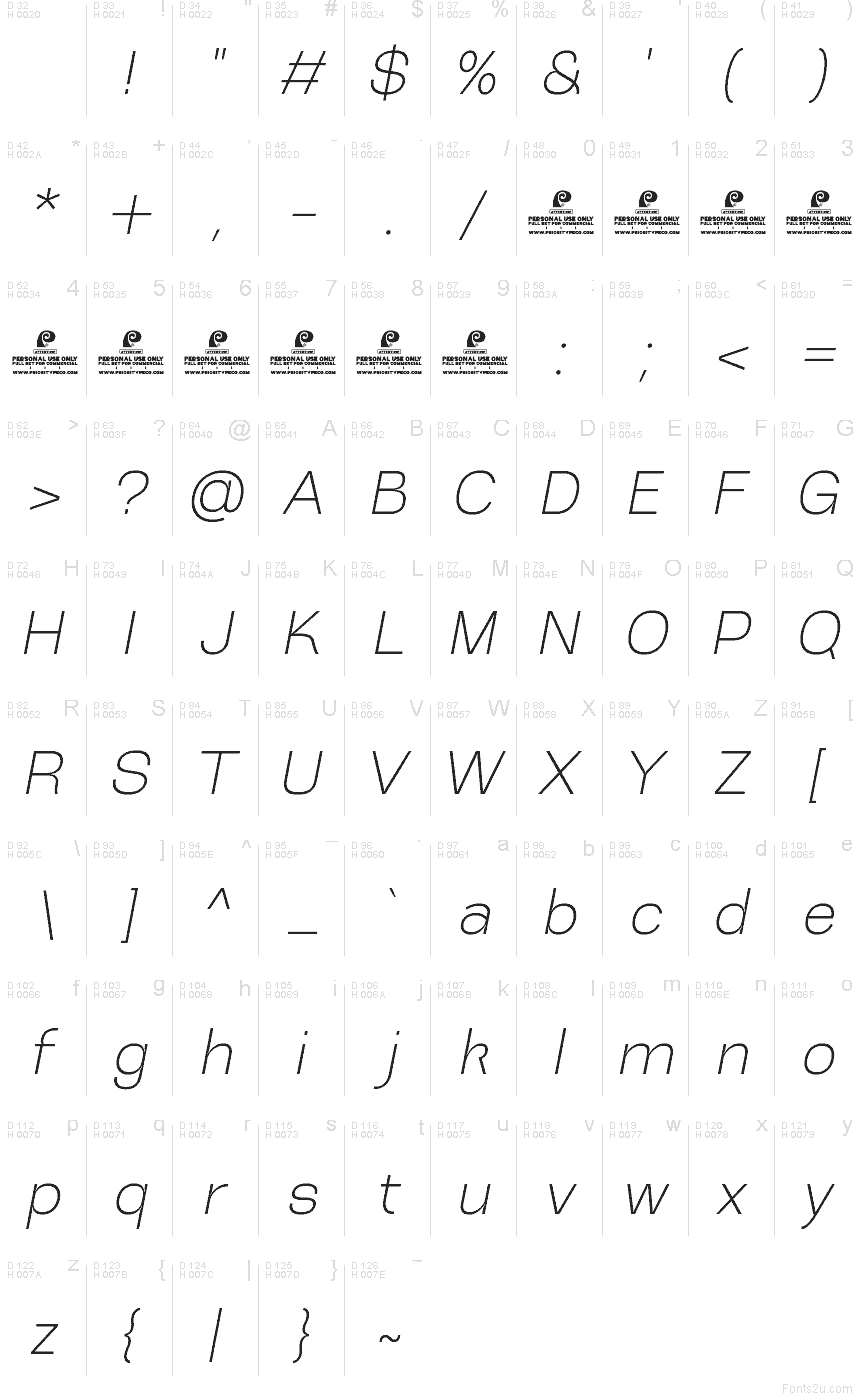
Heuvel Grotesk DEMO ExtLt Ita
Heuvel Grotesk ExtLt Italic font by Prioritype Co is a free sans serif typeface that glides across the page with a fine, almost pencil-line stroke. Its extra-light weight and slanted stance give text a sense of movement and air, like notes scribbled in the margin but with the clarity of a modern grotesk. Subtle curves and generous spacing keep it legible, so you get that delicate, fashion-forward feel without sacrificing readability.
Using Heuvel Grotesk ExtLt Italic, you can add a refined whisper of emphasis to editorial layouts, lookbooks, beauty packaging, posters, digital banners, and sleek UI accents. This free font shines on large titles and short phrases where its thin rhythm can really breathe. It works beautifully paired with a sturdier member of the Heuvel Grotesk family for body text, creating a clean contrast between statement and support.